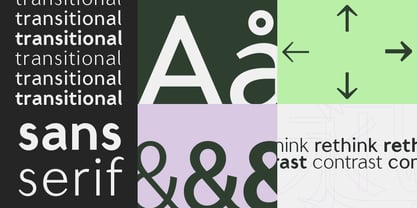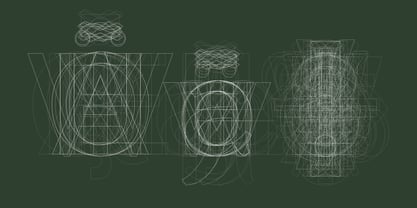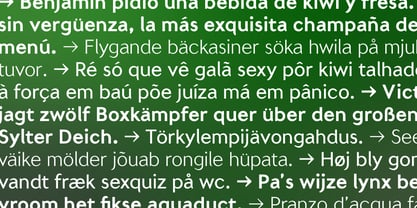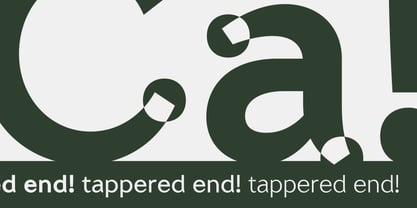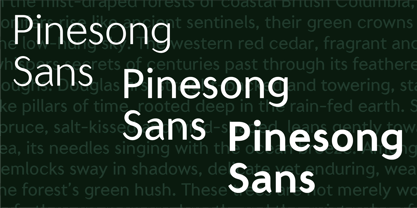
Pinesong Sans
von Quote Foundry
Die Schriftfamilie Pinesong Sans wurde von Liyang Zha entworfen und von Quote Foundry veröffentlicht. Pinesong Sans enthält 3 Stile und Familienpaketoptionen. Mehr über diese Familie
Inspired by an early iteration of a sans serif Chinese typeface from the 1970s, Pinesong Sans blends the mechanical functionality of serifs, the humanistic quality of stroke contrasts, and the aesthetics of digital-age typefaces.
With three weights available, Pinesong Sans family is capable of text, display, print, physical manufacture, and much more!